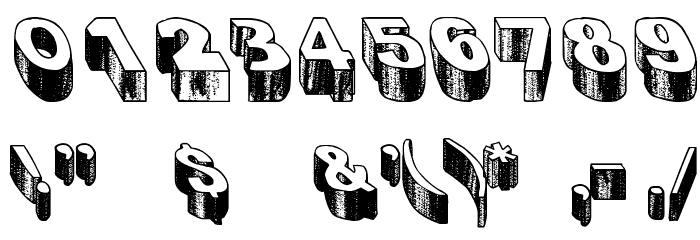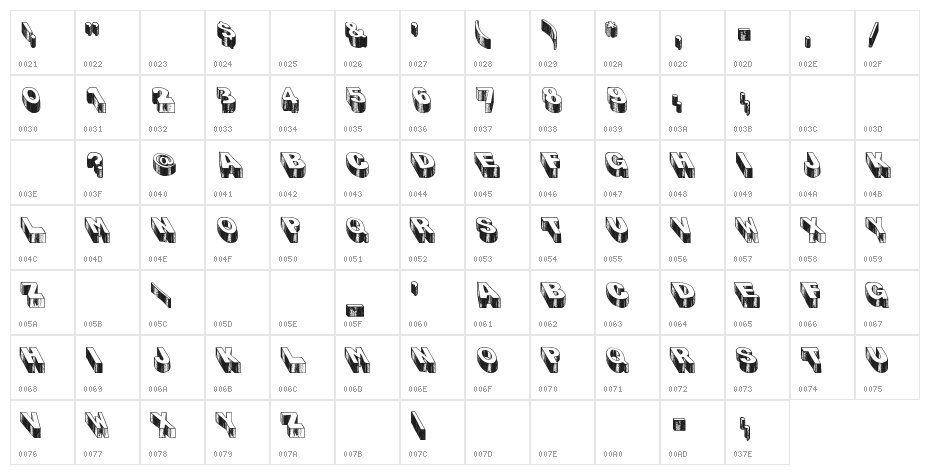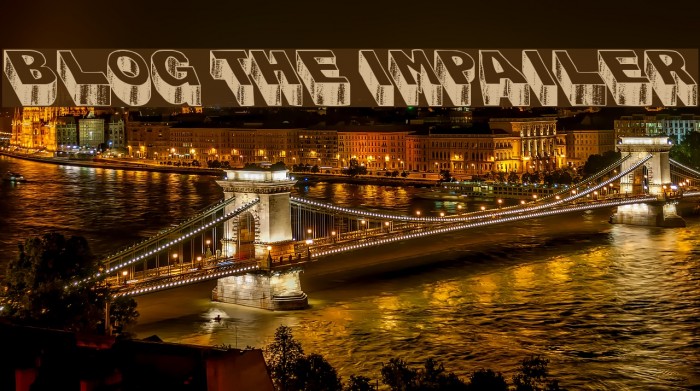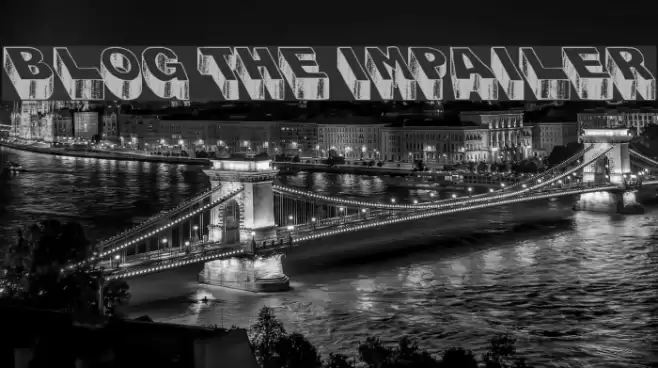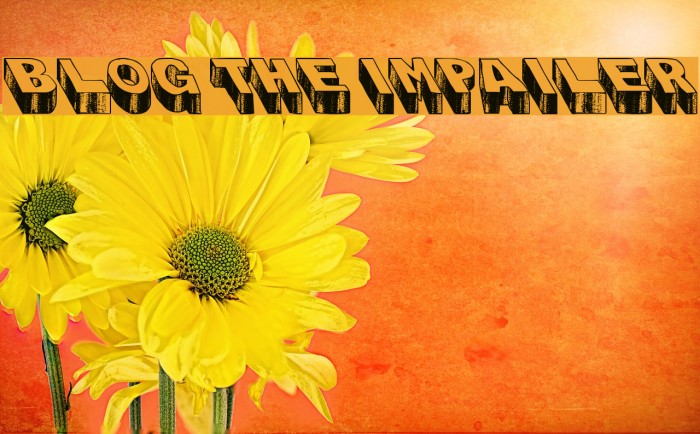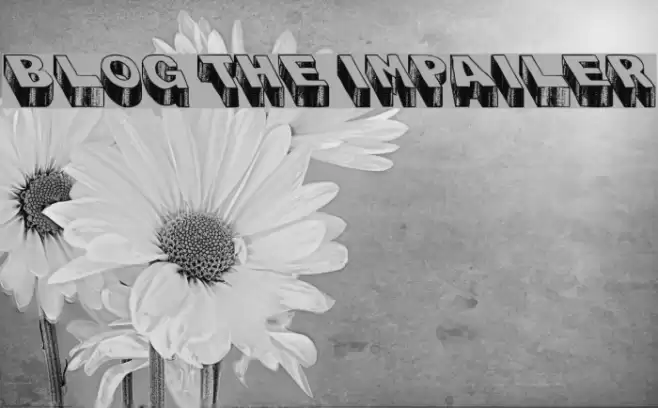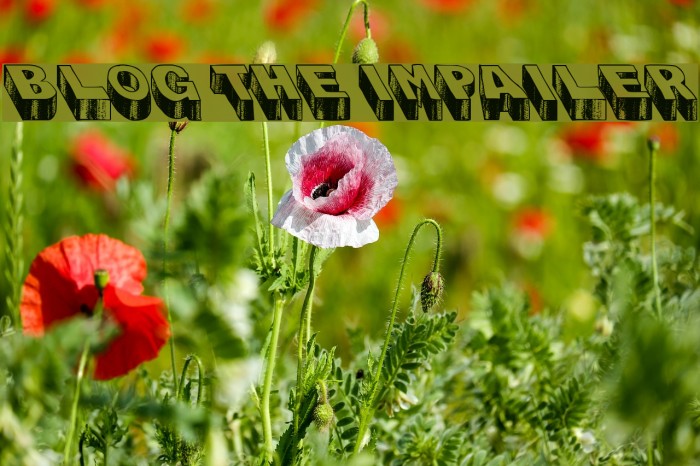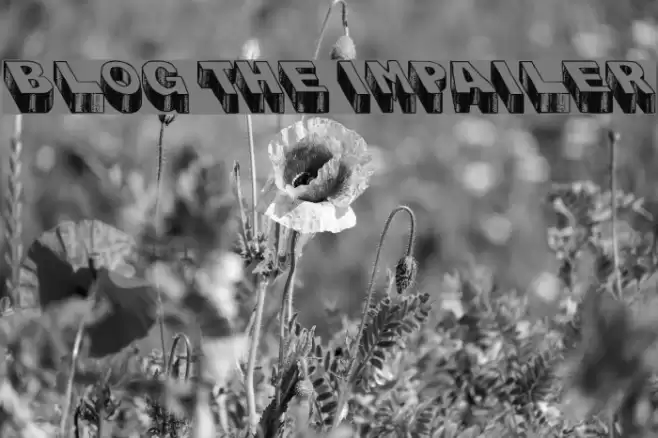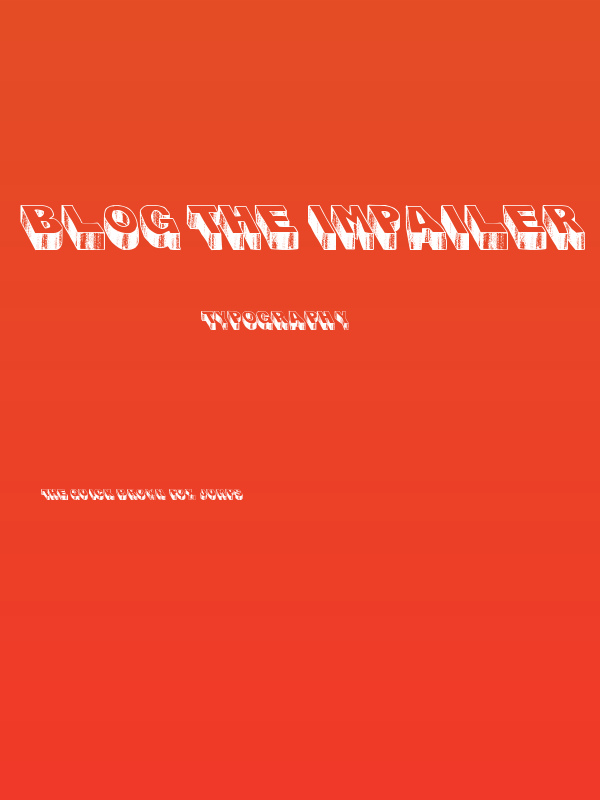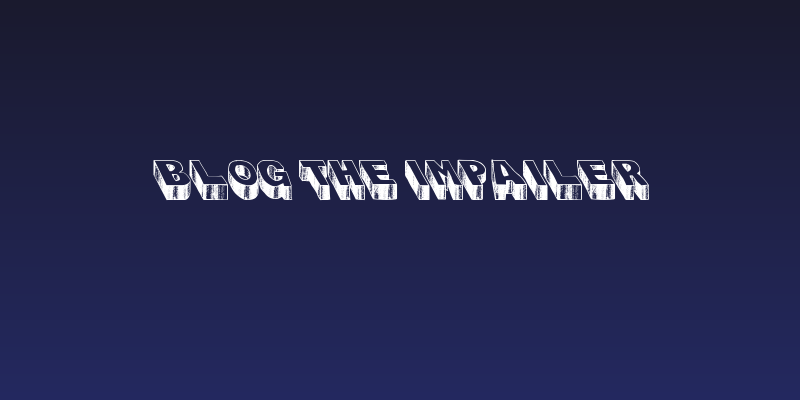
Blog the Impailer Font
Blog the Impailer Description
This font features a bold, three-dimensional design with a vintage comic book aesthetic. Each character is outlined with a thick black border, giving it a strong presence and making it highly legible from a distance. The interior of the characters is filled with a textured pattern that adds depth and visual interest. The font's playful yet robust style makes it ideal for eye-catching headlines and titles. Its unique design is reminiscent of retro signage and pop art, making it suitable for projects that require a touch of nostalgia or whimsy.